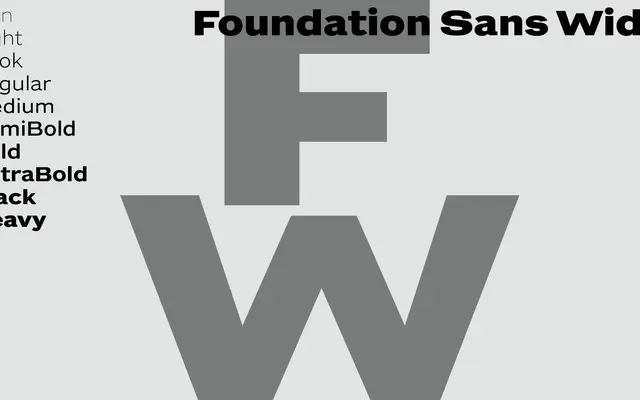
Foundation Sans Wide
The wide-width member of A2-Type's Foundation collection, a revival grotesque drawn from American, French and Nordic historical specimens across ten weights with matching italics.
Foundation Sans Wide spans ten weights from Thin to Heavy, each with a matching italic, giving a total of 20 styles in this width variant alone. It sits within the broader Foundation suite of 100 fonts, which also includes the standard and condensed sans cuts alongside serif and Didot serif families. The expanded proportions suit display and branding work where a confident, wide-set grotesque is needed.
Part of A2-Type's Foundation collection, a revival suite drawn from historical American, French and Nordic specimens; the Wide variant extends the base grotesque into expanded proportions across a large weight range.